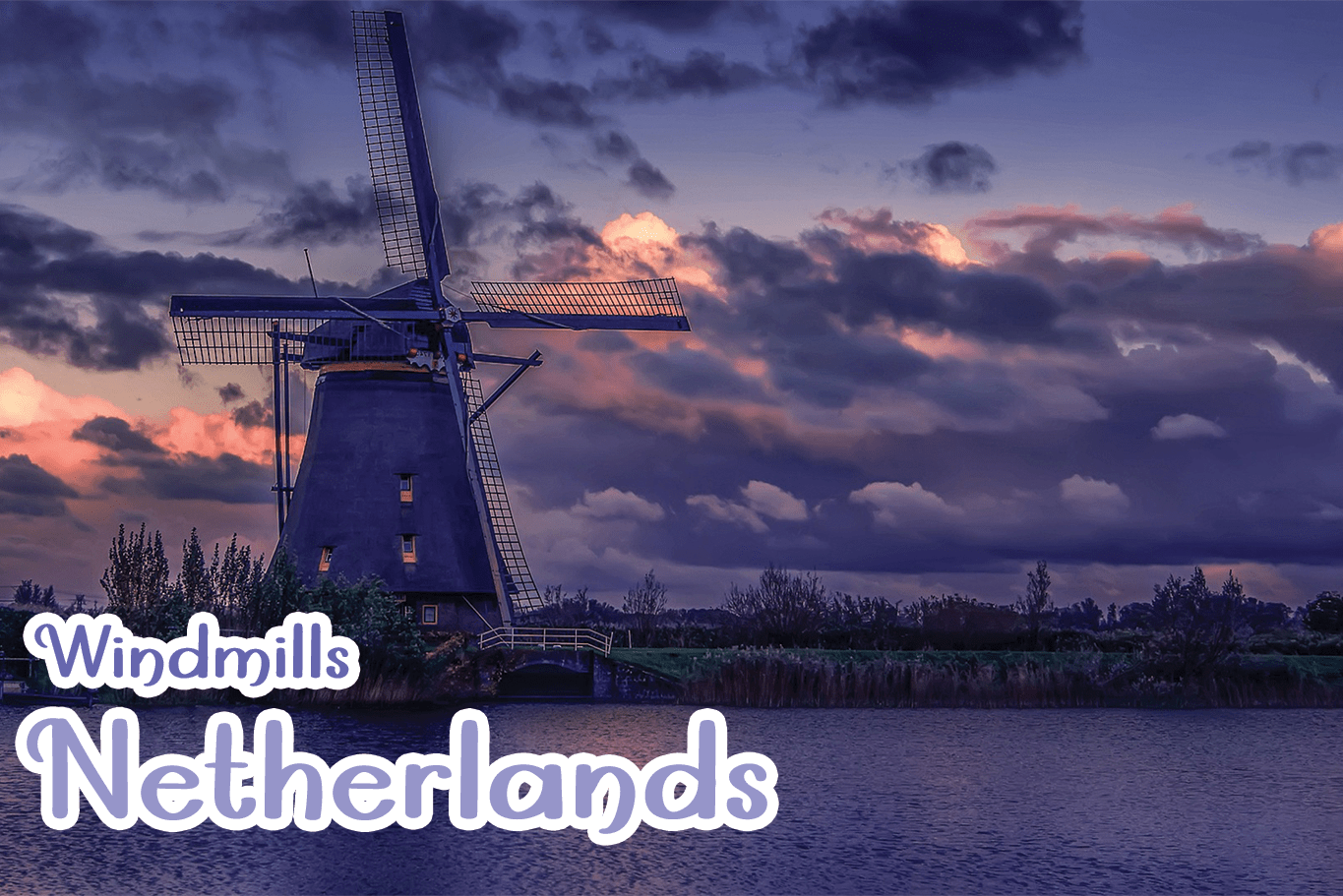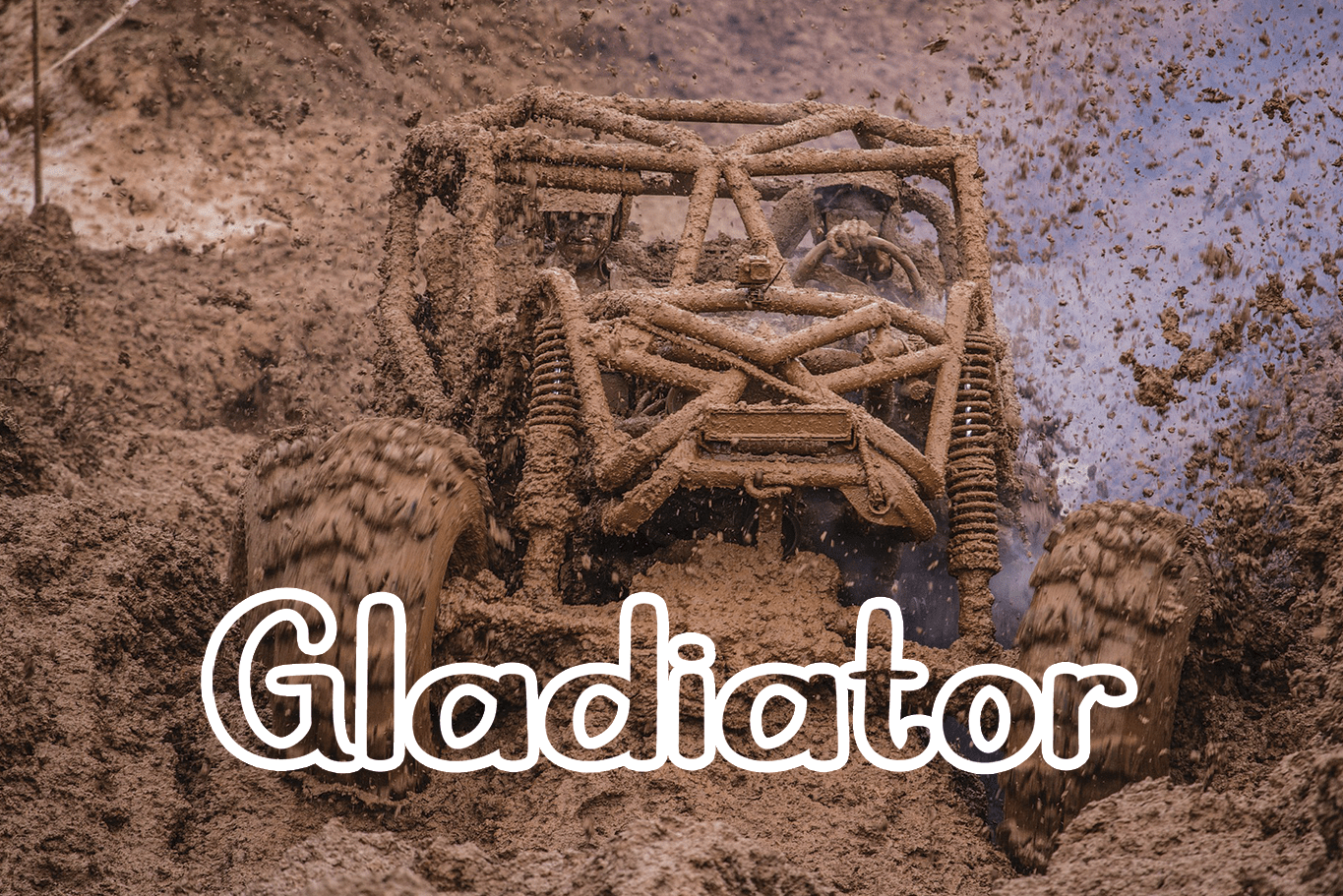
Jeep Road Font
Jeep Road Brush Font
This is a simple and adaptable handwritten font. Its natural and unique style makes it incredibly fitting to a large pool of designs. The only limit is your imagination!